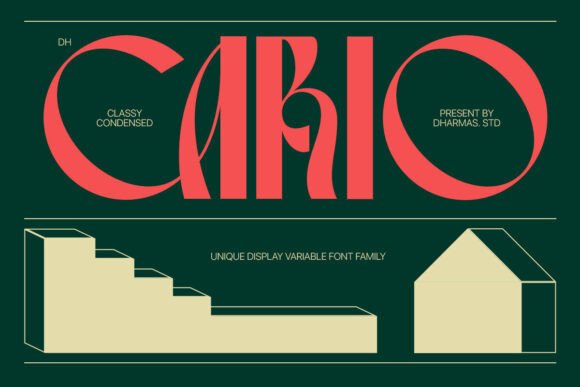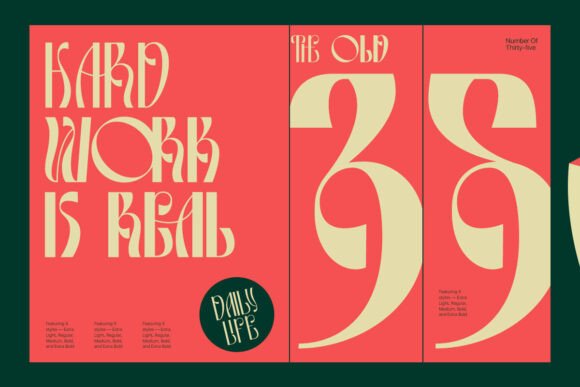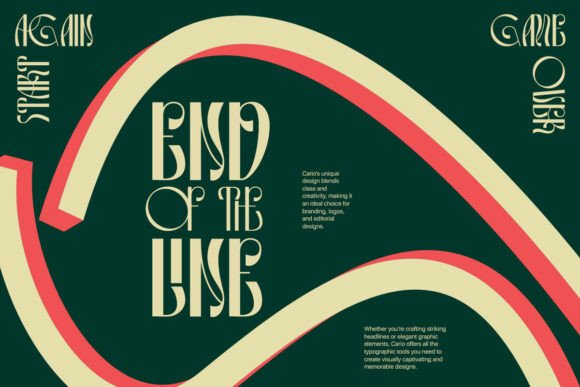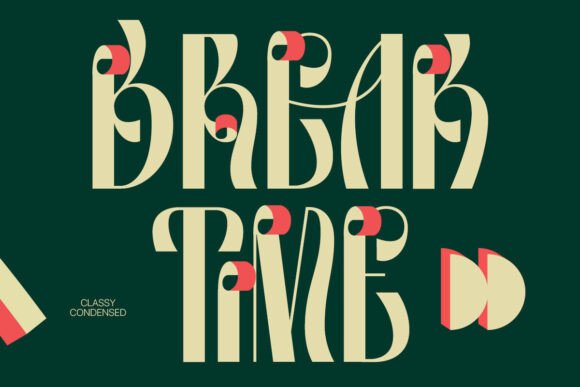
Cario Font
About the Cario Font
Discover the charm of Cario Font. This font is a perfect blend of modern aesthetics and classic appeal. Introducing Cario, a display variable typeface creatively designed by Dharmas Studio. Featuring 5 weight variations—Thin, Light, Regular, Semi Bold, and Bold—and 85 unique ligatures and alternates, Cario is the perfect choice for creating elegant and impactful designs. Ideal for headline posters, brand logos, aesthetic moodboards, and beauty branding, Dh Cario adds a modern and captivating touch to any project.
Cario Font Usage Examples